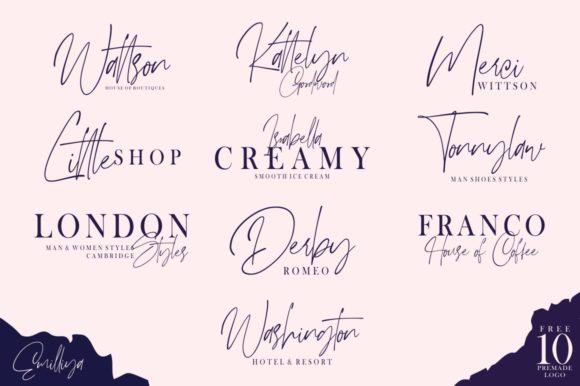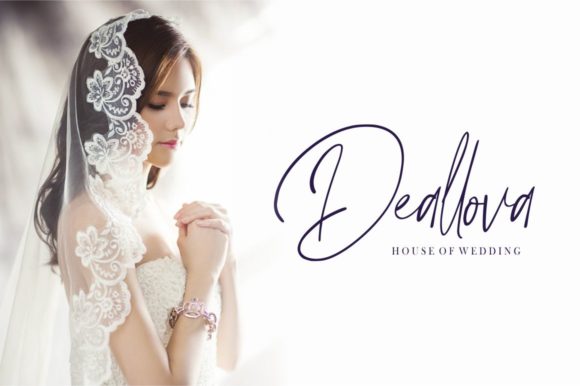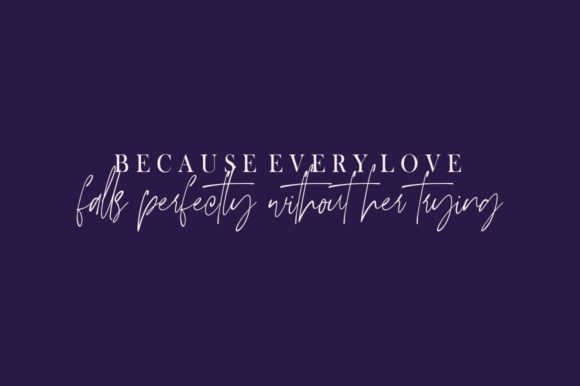
Introduction to Emilliya Font
Have you ever stared at a blank canvas, eager to bring a creative project to life, only to be overwhelmed by the endless possibilities? For designers, this feeling is all too familiar. But what if you had the perfect tool to spark inspiration and turn your ideas into stunning reality? Look no further than the Emilliya Font – a game-changing design resource that’s about to become your new best friend.
With its luxurious and spacious feel, the Emilliya Font is a clear standout in the world of typography. Whether you’re working on a high-quality design project or simply need a reliable font to elevate your creative vision, this font is sure to deliver. And the best part? It’s available for free download, making it a valuable resource for designers of all levels.
Imagine having a design resource that’s not only beautiful but also versatile, allowing you to achieve a transparent background or create a unique visual identity that sets your work apart. The Emilliya Font is that resource, and we can’t wait to share its secrets with you.
Key Features of Emilliya Font
- Unique, hand-drawn design for creative projects, perfect for adding a personal touch.
- Perfect for use in digital design, including web design, graphic design, and creative projects.
- High-resolution design ensures crisp, clear text and graphics, even at larger sizes.
Honest Review: Emilliya Font
I recently stumbled upon the Emilliya Font while searching for a design resource for my next creative project. I must say, I was quite impressed with what I found.
- ✨ The Emilliya Font has a beautiful, elegant design that would suit a wide range of applications, from wedding invitations to business cards.
- ⚠️ The font may not be suitable for all types of projects, particularly those that require a bold or dramatic font.
Overall, I’m thoroughly impressed with the Emilliya Font. It’s a high-quality design resource that can add a touch of elegance to any creative project. If you’re looking for a versatile and stylish font, the Emilliya Font is definitely worth checking out.
Tips for Getting the Most Out of Emilliya Font
To get the most out of Emilliya Font, use it on a transparent background to create a seamless design. This font is perfect for creative projects that require a high-quality, unique font. You can also use it as a design resource for social media graphics, posters, and flyers.
Emilliya Font is commonly used for creative projects such as branding, packaging, and advertising. It’s also a popular choice for designers who want to add a touch of elegance and sophistication to their designs. With its high-quality design and free download, Emilliya Font is a valuable resource for any designer.
What is the recommended font size for optimal readability with the Emilliya Font?
The recommended font size for optimal readability with the Emilliya Font is between 12 and 24 points, depending on the design context and intended audience. For body text, 14-16 points is a good starting point, while headings can be larger, typically between 18-24 points. This will ensure that the font is legible and easy to read in a variety of design settings.